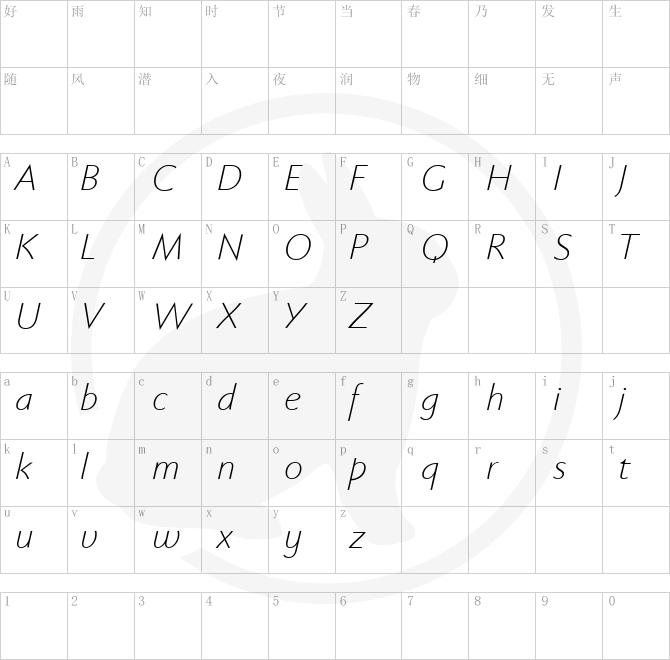
- Font Name:Faber Sans Pro reduced
- Subfamily:46 Leicht Kursiv
- Subfamily:IngoZimmermanningoFontAugsburg: Faber Sans Pro 46 Leicht Kursiv: 2010
- Full Name:FaberSansPro-LeichtKursiv
- PostScript:FaberSansPro-LeichtKursiv
FaberSansPro-LeichtKursiv.ttf is a very beautiful artistic font, FaberSansPro-LeichtKursiv.ttf is widely used in the design and printing of various books and pictures,FaberSansPro-LeichtKursiv.ttf has a strong visual impact,FaberSansPro-LeichtKursiv.ttf is a commonly used font in newspapers, magazines and books, and is used in posters, e-commerce Poster design, store design, logo design, font design and other fields.FaberSansPro-LeichtKursiv.